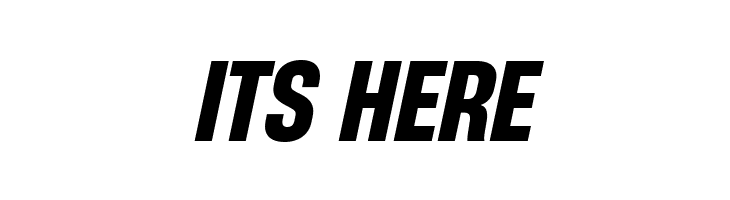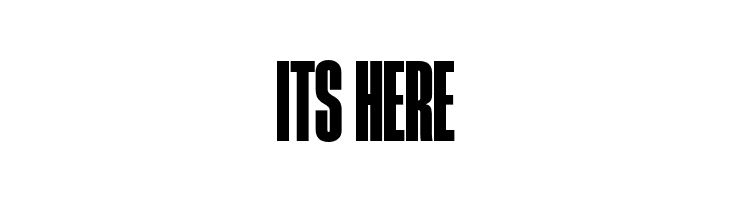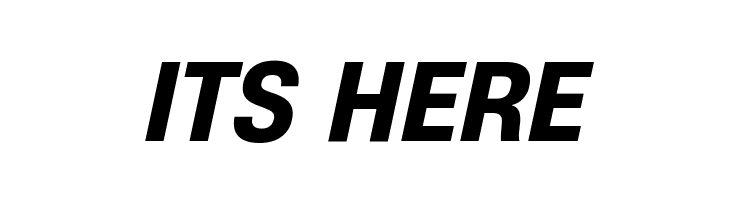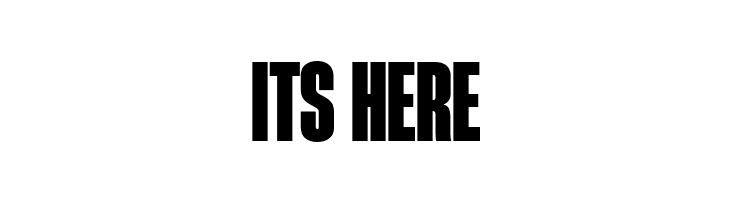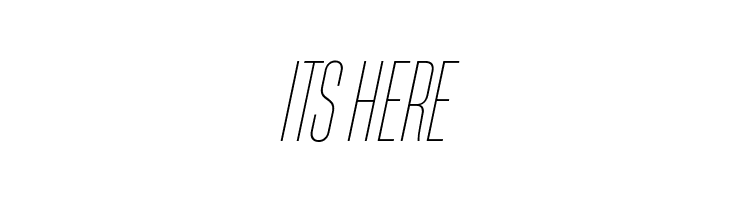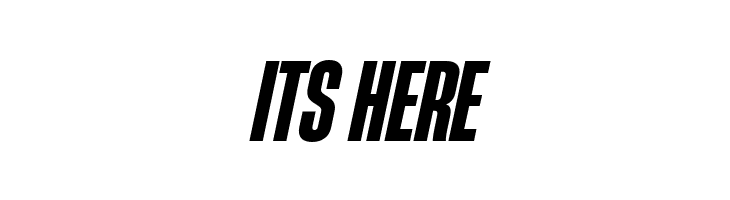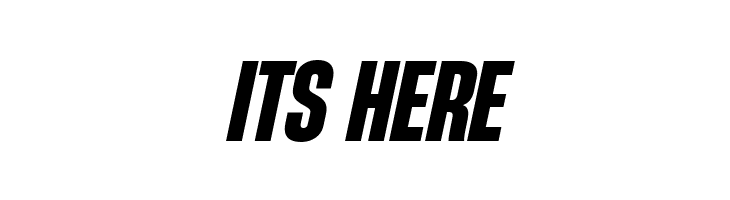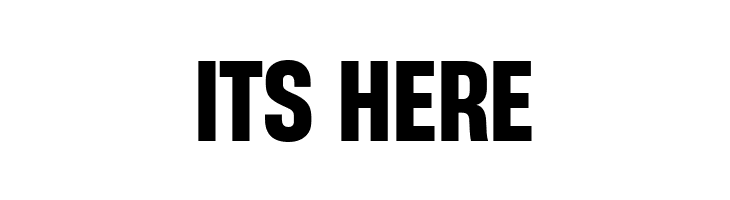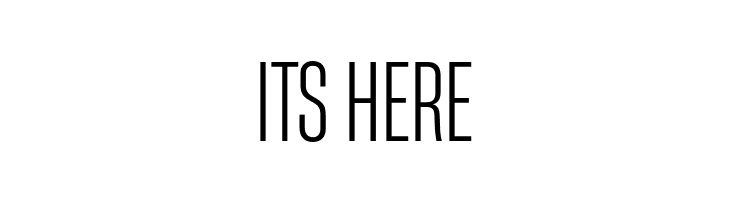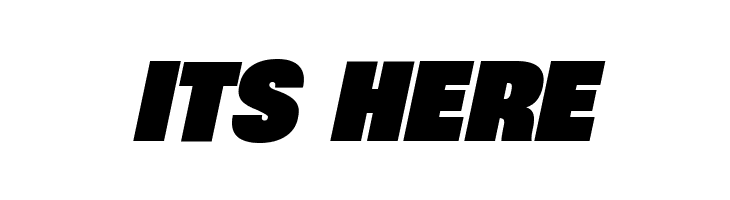
A bold, italic font with a dynamic and modern style.
A sleek, modern font with tall, narrow characters and minimal contrast.
A bold, italicized font with a strong, modern presence.
A modern, sleek font with tall, narrow characters and a refined appearance.
A bold, italic, and modern font with a dynamic and energetic style.
A bold, condensed, modern font with tight spacing and clean lines.
A bold, heavy font with tight spacing and uniform stroke thickness, perfect for impactful designs.
A modern, medium-weight italic font with a bold and slightly condensed style.
A bold, heavy font with high contrast and tight spacing, perfect for impactful headlines.
A thin, italic font with a modern and sleek design.
A bold, italic font with a dynamic and impactful style.
A bold, italic font with high contrast and tight spacing, perfect for impactful headlines.
A bold, sans-serif font with a strong, modern presence.
A modern, tall, and narrow sans-serif font with a clean and professional look.
A bold, heavy italic font with a strong, modern presence.
A bold, modern sans-serif font with clean lines and high contrast.
A modern, narrow sans-serif font with clean lines and balanced spacing.
A thin, modern italic font with a sleek and elegant design.
A clean, modern sans-serif font with uniform stroke width and geometric influence.
A bold, modern font with a tall, condensed style.
A modern, italic sans-serif font with a sleek, condensed style.
A modern, italic font with tall, narrow characters and a sleek, contemporary style.
A bold, condensed font perfect for impactful headlines and titles.
A bold, italicized font with strong, dynamic strokes and a cohesive design.
A sleek, modern italic font with elongated characters and consistent stroke width.
A sleek, thin, and italic font with a modern and dynamic style.
A modern, italic, and condensed font with consistent stroke thickness.
A bold, condensed, and modern font with tight spacing and minimal contrast.
A bold, italic font with a dynamic and modern style.
A bold, modern font with thick, uniform strokes for impactful displays.
A bold, modern font with thick strokes and tight spacing, perfect for impactful headlines.
A sleek, thin, and italicized font with a modern and elegant style.